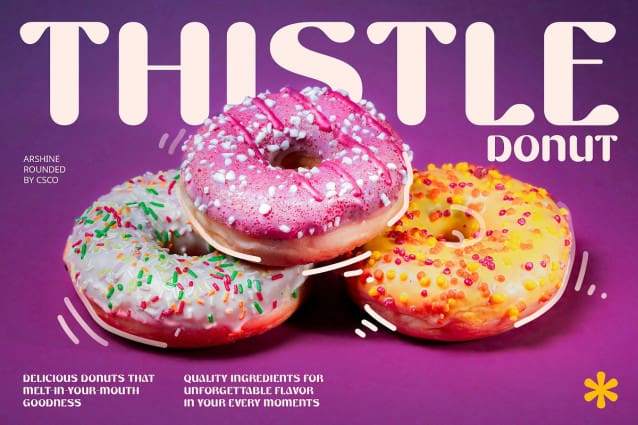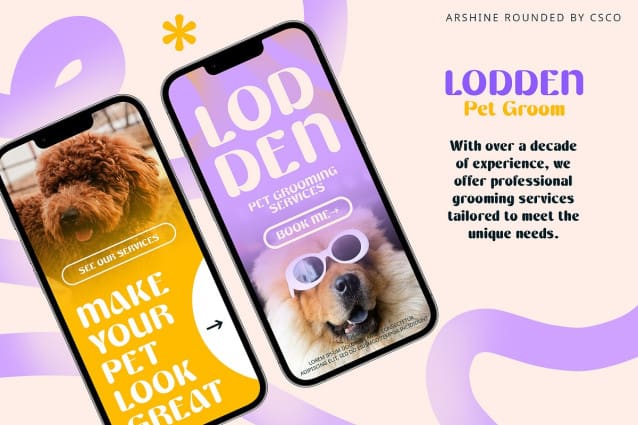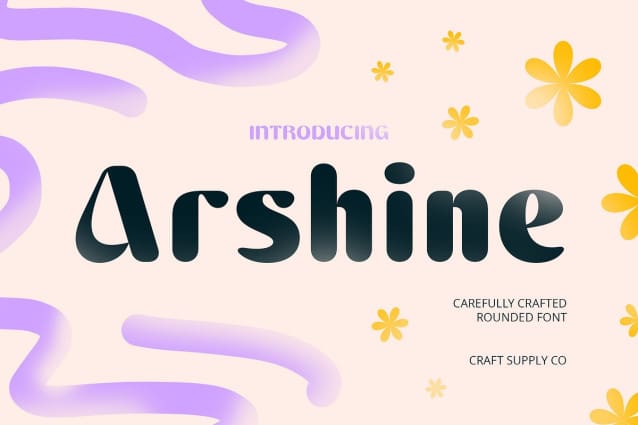
Arshine Rounded Font
Arshine Rounded Font is a sans serif font featuring bold, rounded shapes that exude a cute, retro, and funky vibe. Ideal for designs aiming to evoke a playful and nostalgic feel, it adds a distinctive charm to branding, posters, and creative projects.
With its playful and approachable aesthetic, Arshine Rounded allows designers to express creativity effectively. Whether used in digital designs or printed materials, this font captivates attention and invites engagement with its charming retro character.
From vibrant branding campaigns to eye-catching posters and digital graphics, Arshine Rounded shines in diverse design applications. Its bold and rounded forms ensure readability and impact, making it a versatile choice for any project that demands a touch of retro flair.
Invoke nostalgia and fun with Arshine Rounded, a font designed to transport viewers to a playful era while maintaining a contemporary appeal. Perfect for brands looking to stand out with a hint of retro charm, this font brings a joyful and memorable element to your visual communication.